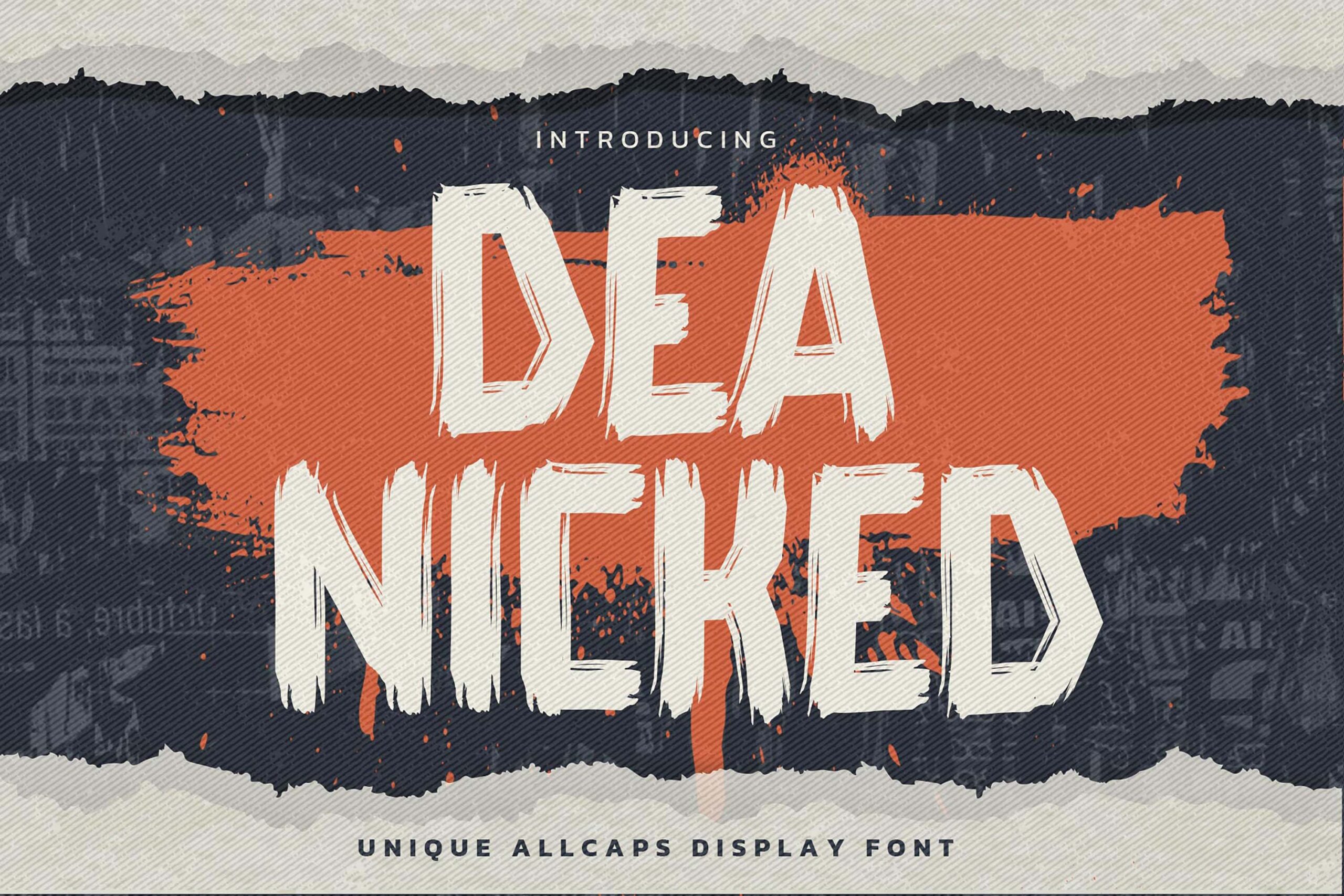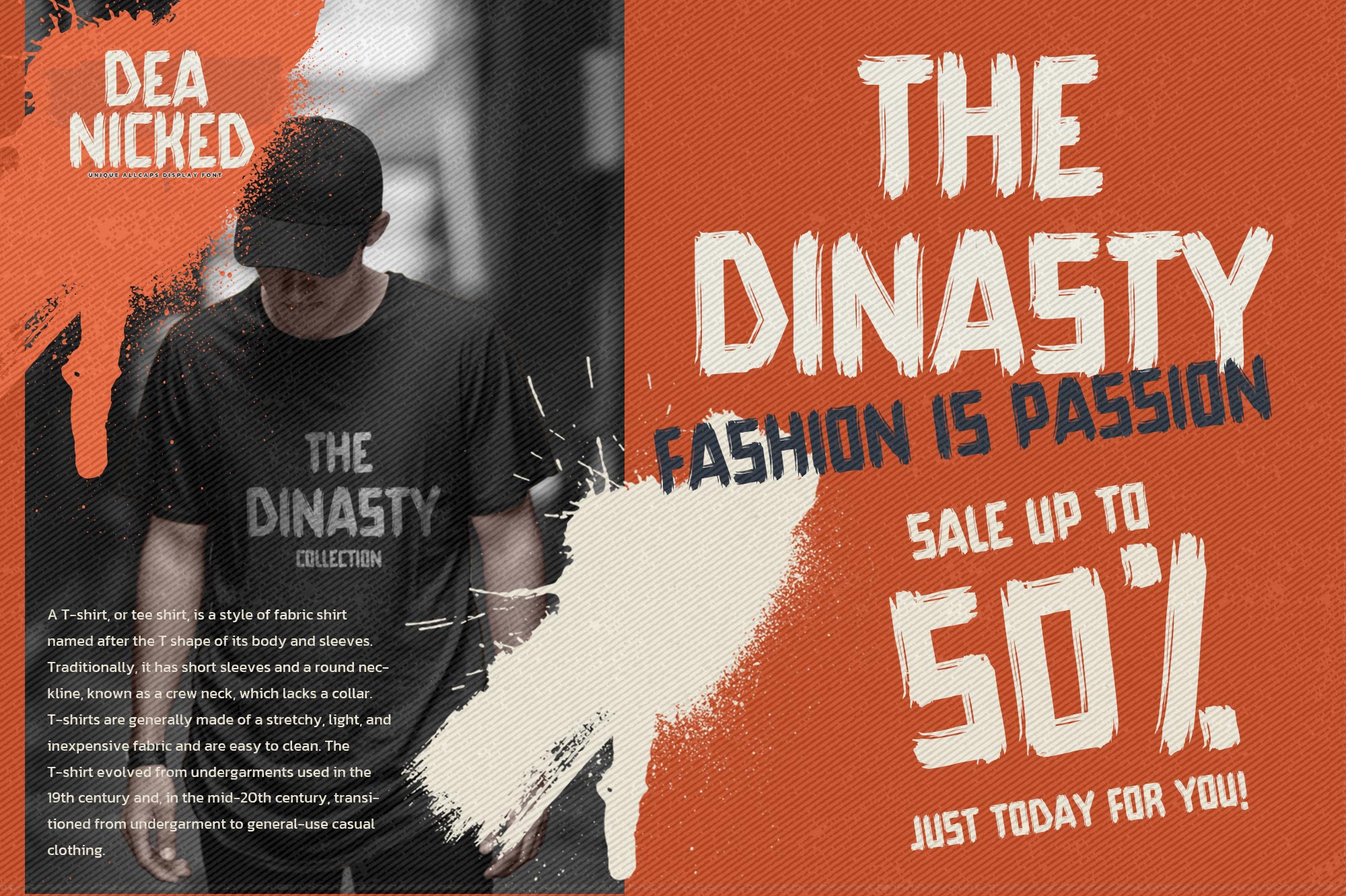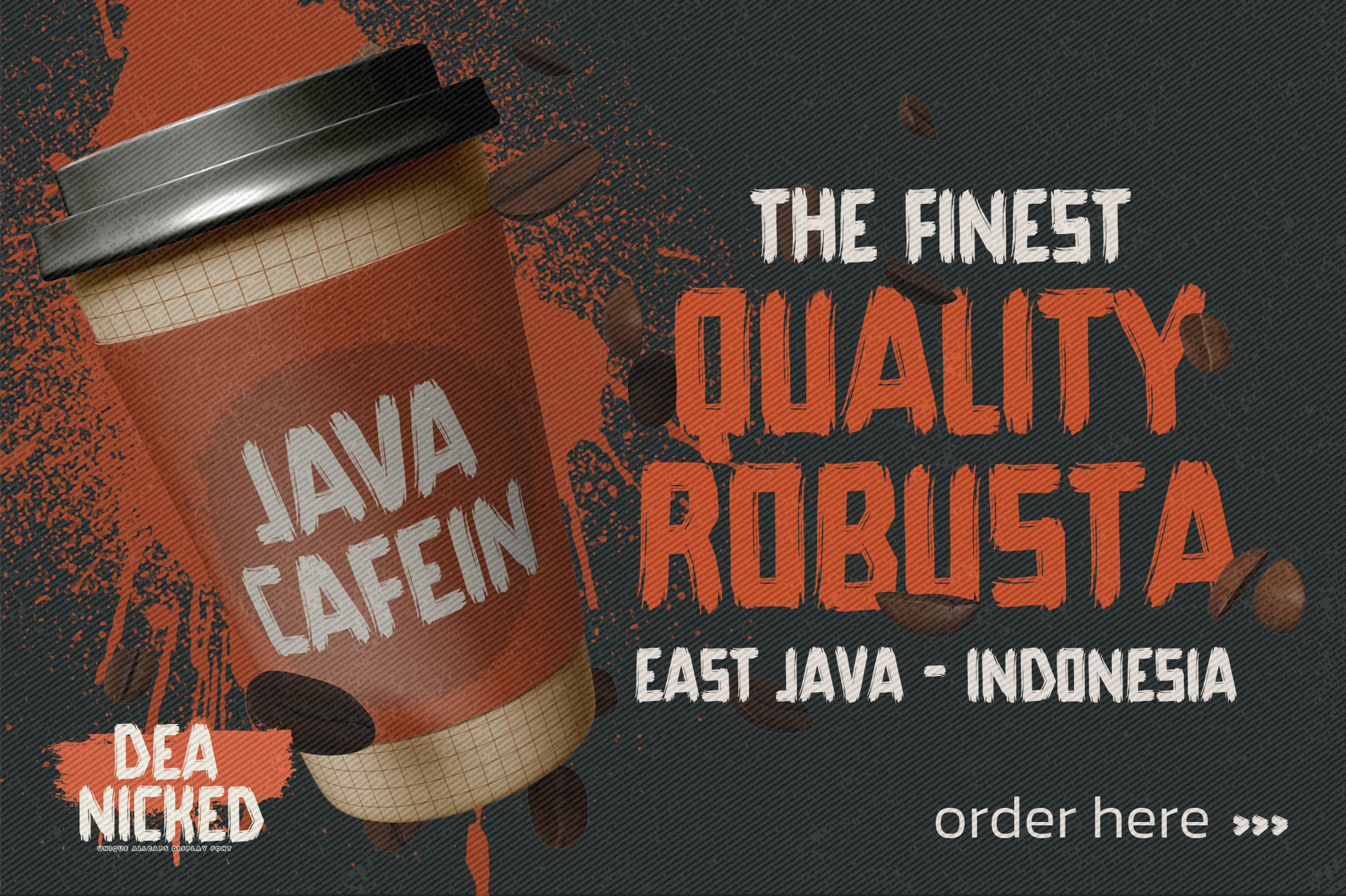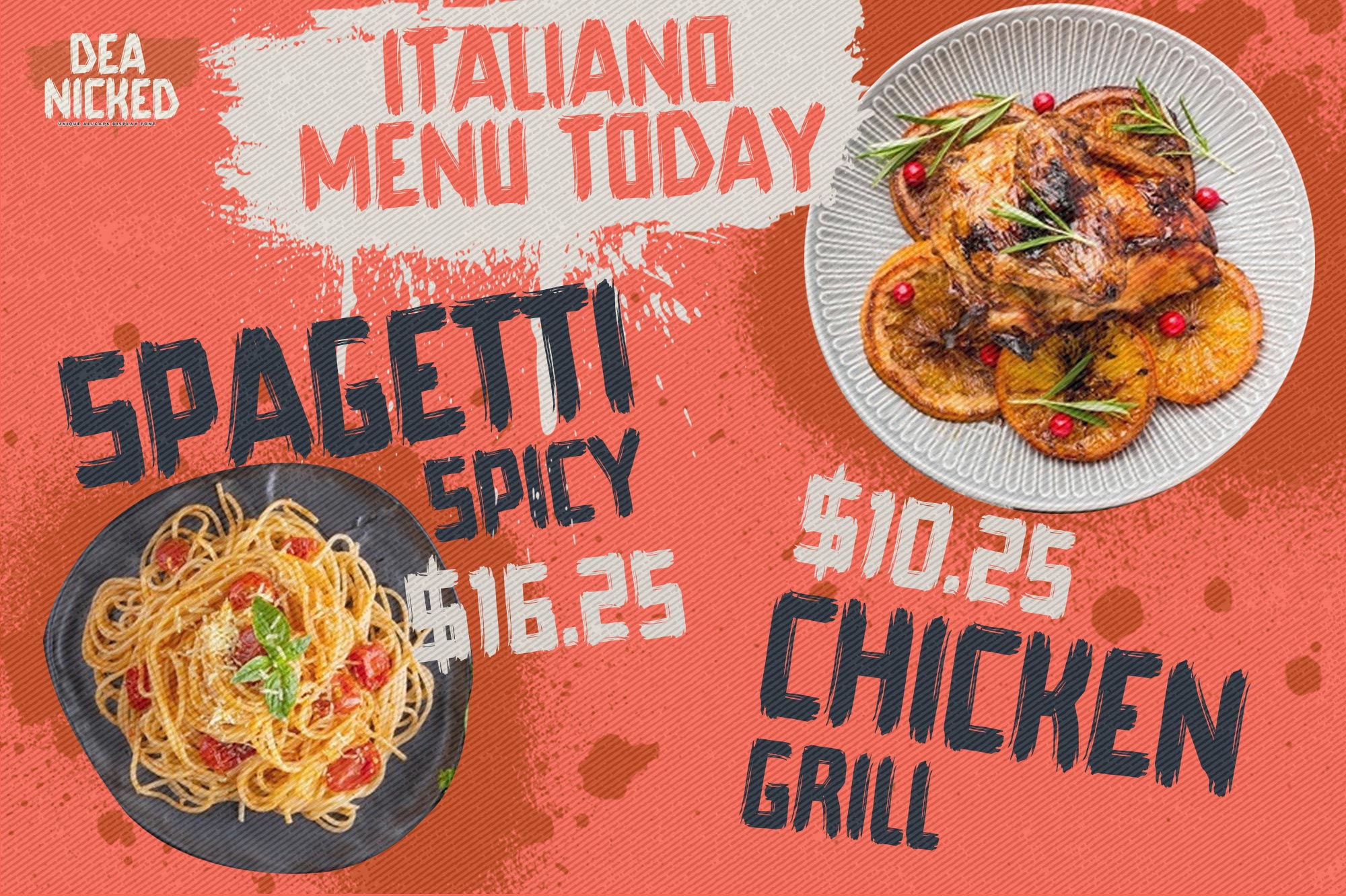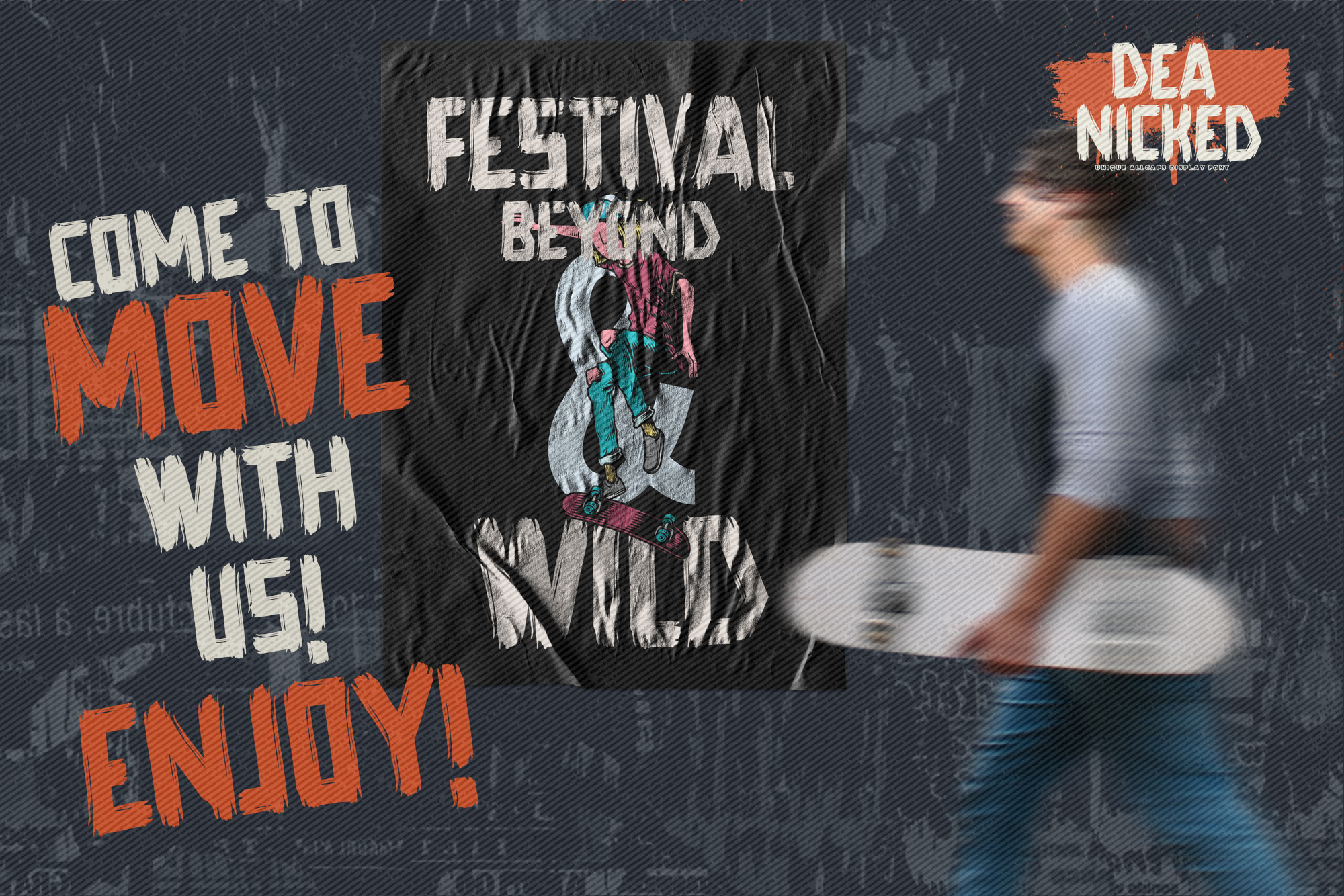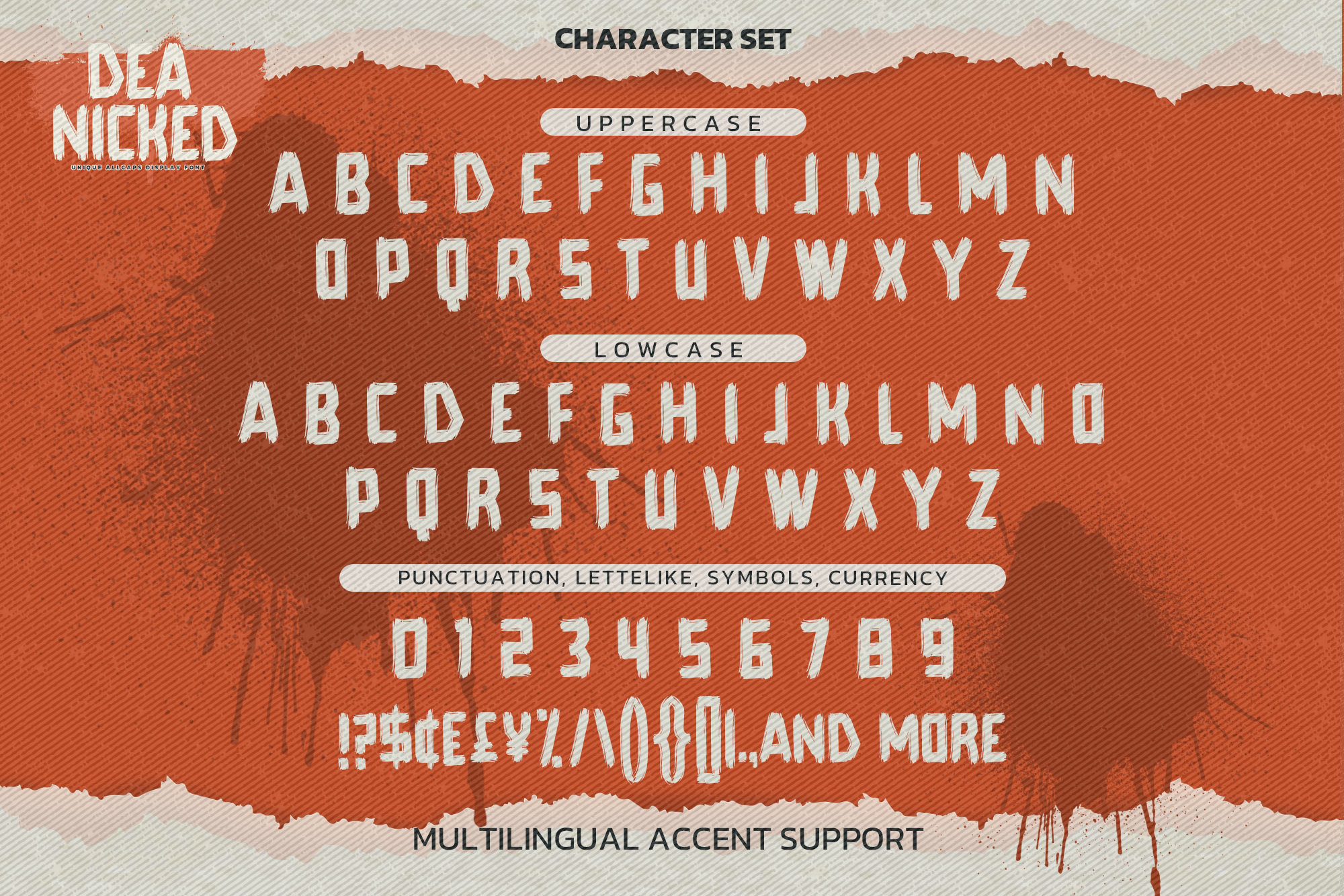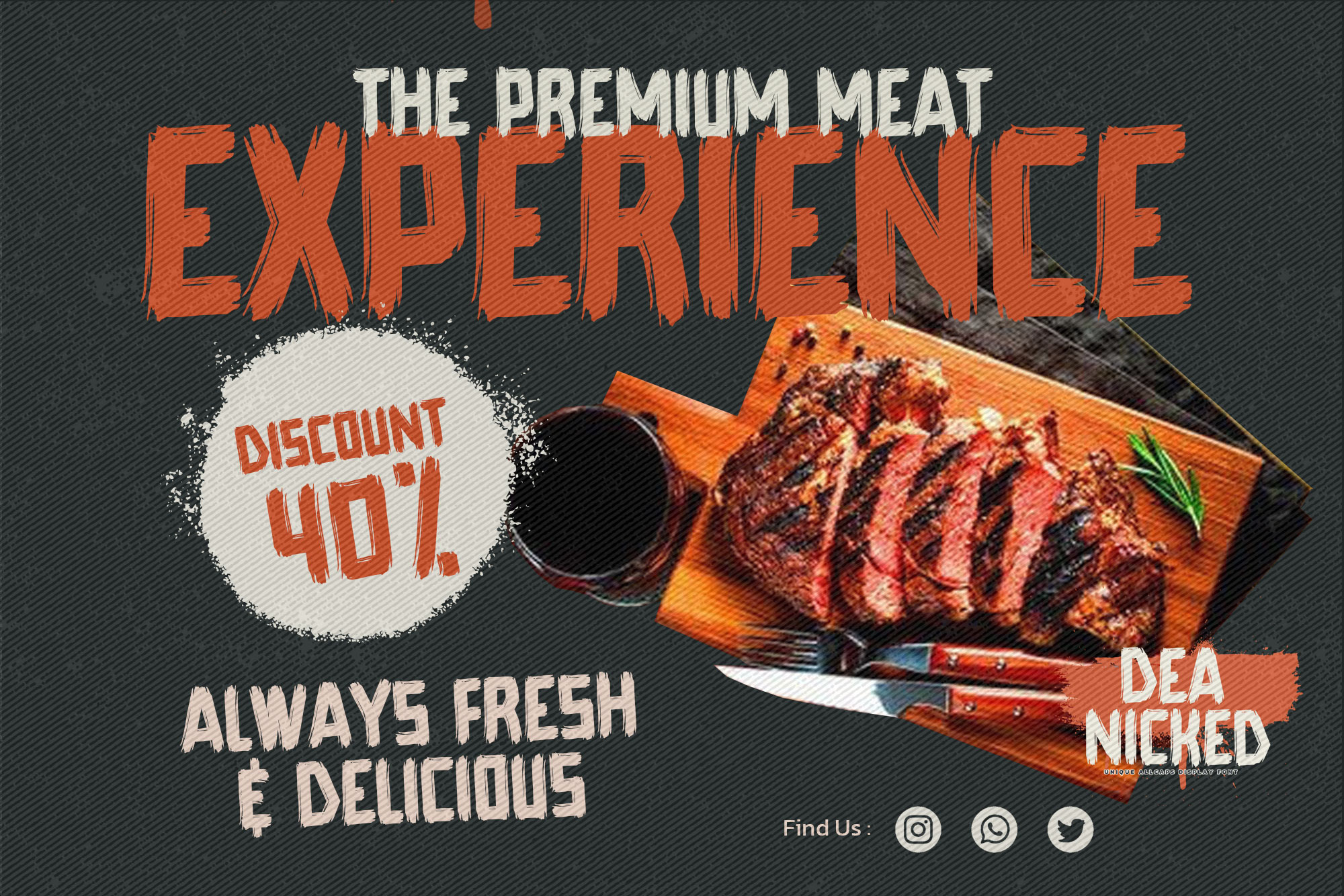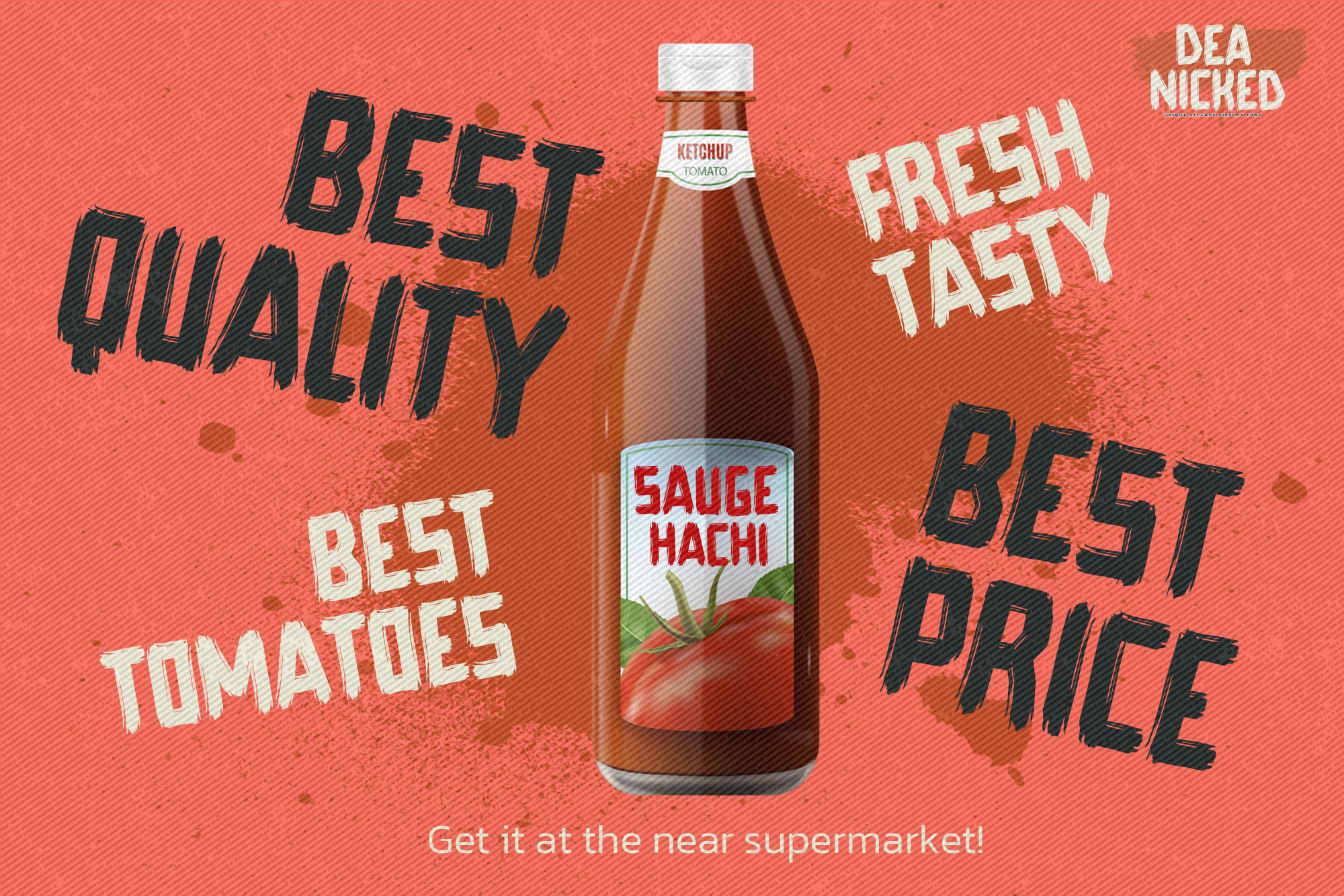
DEANICKED – Unique All Caps Display Font, modern style and dramatic movement that is written casually and quickly.
The best for labels,poster,project , designs look modern, authentic and unique. It’s perfect for labels, quotes, posters, DIY projects, branding, packaging, greeting cards, websites, photography overlays, signs, scrapbooking, tags and so much more! That is why DEANICKED has a textured, and cool characteristic more natural look.